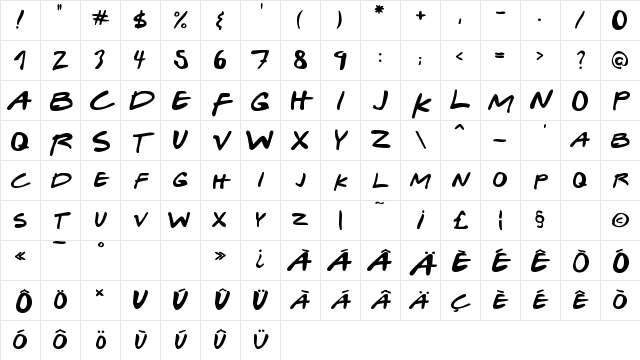
Complete Gabriel Weiss' Friends Font Regular glyph index. Displaying only characters natively supported by Gabriel Weiss' Friends Font Regular font.
Gabriel Weiss' Friends Font is a composed and adaptable typeface that performs quietly and consistently across a wide range of design contexts.